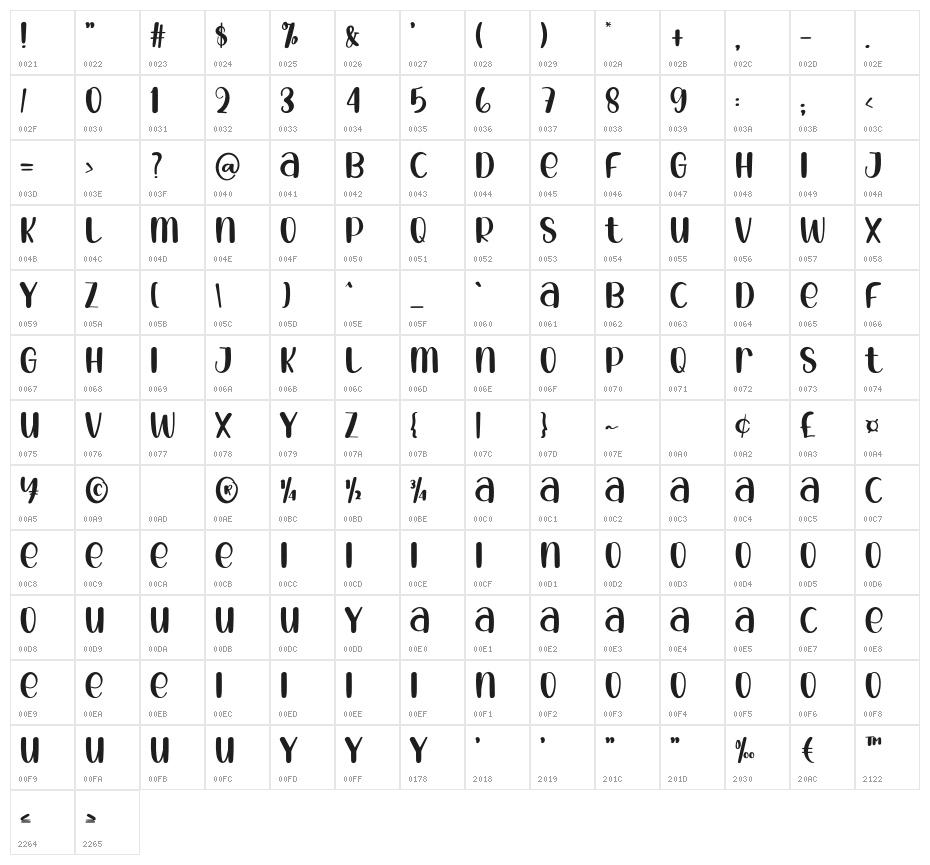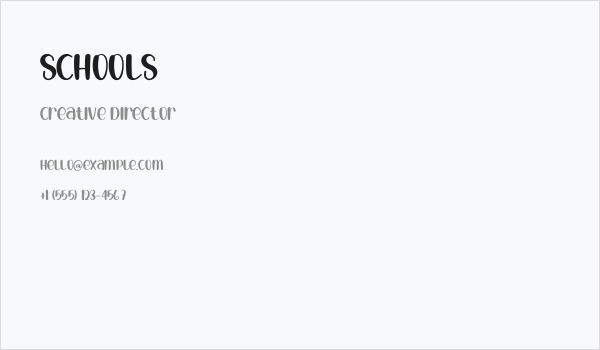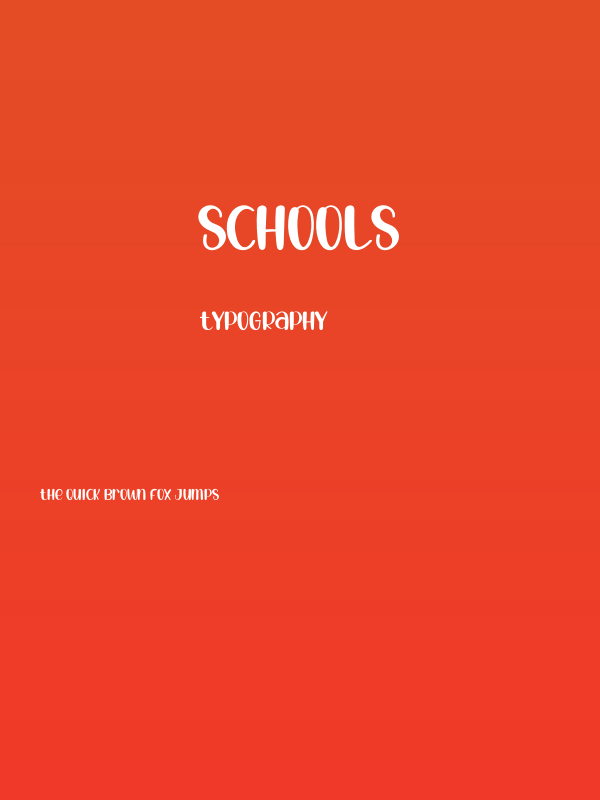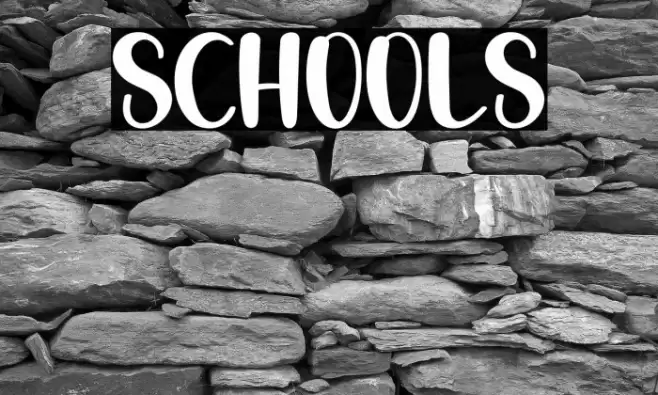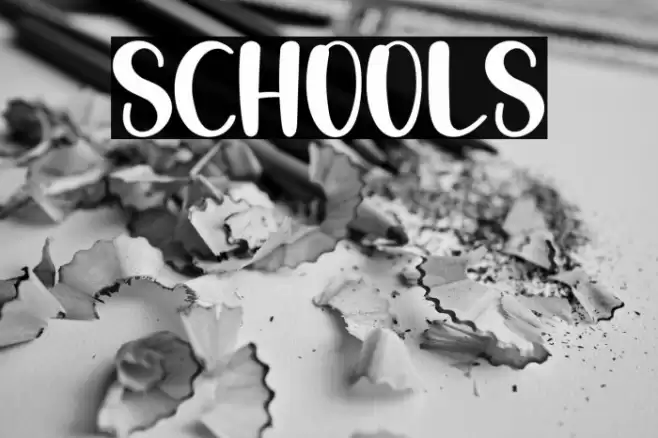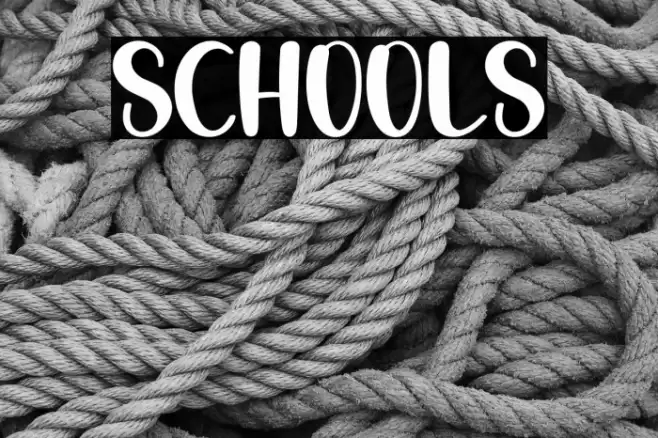
Schools Font
Schools Description
This font features a playful and bold script style with a handwritten feel. The letters are thick and rounded, giving a friendly and approachable appearance. The strokes are consistent in weight, providing a uniform look across all characters. The uppercase and lowercase letters maintain a cohesive style, with some characters having unique flourishes that add to the font's charm. The numerals are equally bold and maintain the playful aesthetic. Special characters are included, matching the overall design. This font is ideal for projects that require a fun and lively touch.
| Proposed Projects | Ideal for children's books, playful branding, greeting cards, and social media graphics. |